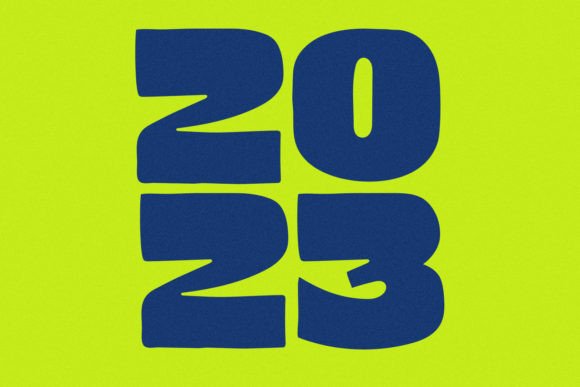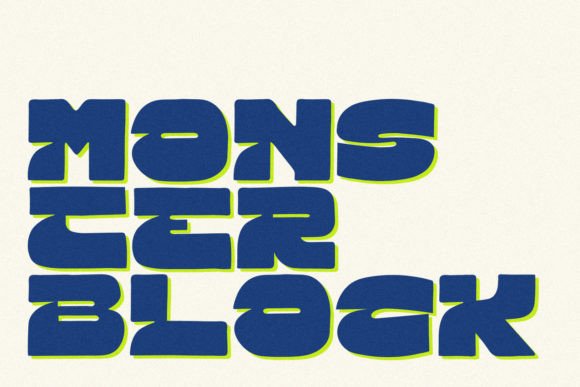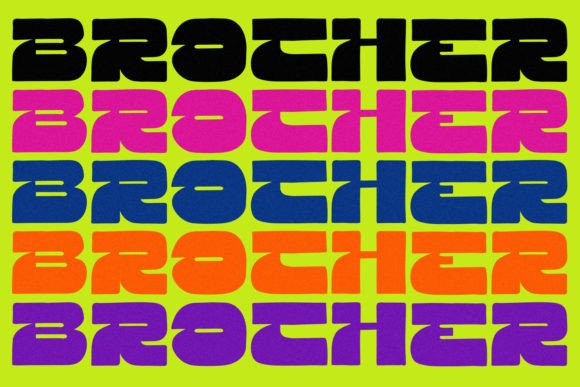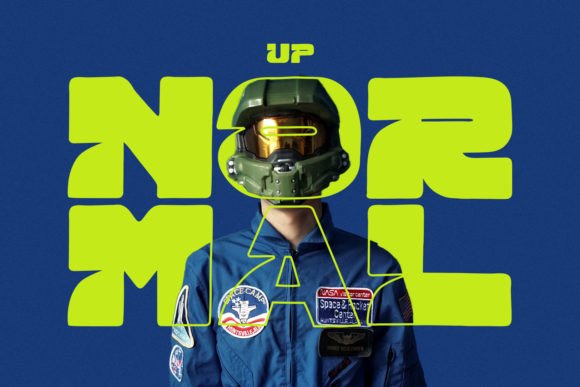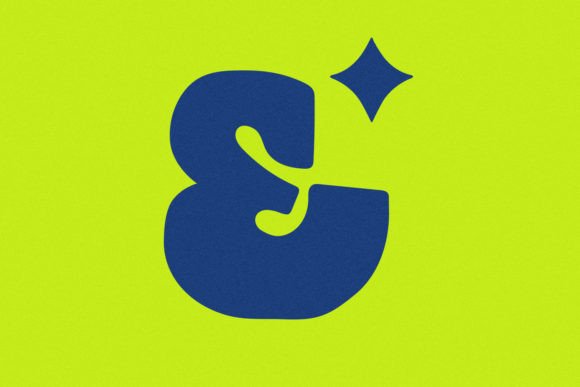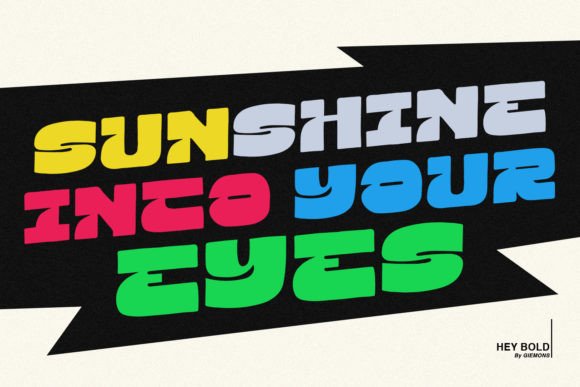
Introduction to Hey Bold Font
Have you ever been working on a creative project, pouring your heart and soul into it, only to realize that the typography is holding it back? The font is dull, the text is hard to read, and it’s just not grabbing the attention you want it to. That’s where Hey Bold Font comes in – a game-changing display font that’s perfect for making a statement.
With its bold and chunky design, Hey Bold Font is a design resource that’s hard to ignore. Its thick and clean lines give it a strong presence, while its geometric shapes and unique curves add a touch of personality. Whether you’re working on a high-quality brochure, a free download, or a website with a transparent background, Hey Bold Font is the perfect choice to elevate your design.
Key Features of Hey Bold Font
- High-quality, bold font design suitable for creative projects and presentations
- Includes 12 weights, from Light to Black, for added flexibility in typography
- Designed as a versatile design resource for various creative projects, including logos, signage, and more
Honest Review: Hey Bold Font
As a designer, I’m always on the lookout for high-quality design resources to enhance my creative projects. I recently stumbled upon the Hey Bold Font, and I’m excited to share my honest review with you.
What works well: ✨ The font is incredibly bold and eye-catching, making it perfect for titles and headings. It’s also surprisingly versatile, working well for both digital and print designs. The font is free to download, which is a major plus for designers on a budget.
Limitations: ⚠️ The font may be a bit too bold for some designs, so be sure to use it sparingly. Additionally, the font may not be suitable for body text, as it can be difficult to read in smaller sizes.
Overall, I’m impressed with the Hey Bold Font. It’s a great addition to any designer’s toolkit, and I highly recommend it for creative projects. With its high-quality design and free download, it’s a no-brainer for designers on a budget.
The Hey Bold Font is ideal for use in headings, titles, and captions. It’s also perfect for creating eye-catching graphics and designs for your creative project. Whether you’re working on a free download or a paid design, this font is sure to make your project stand out.